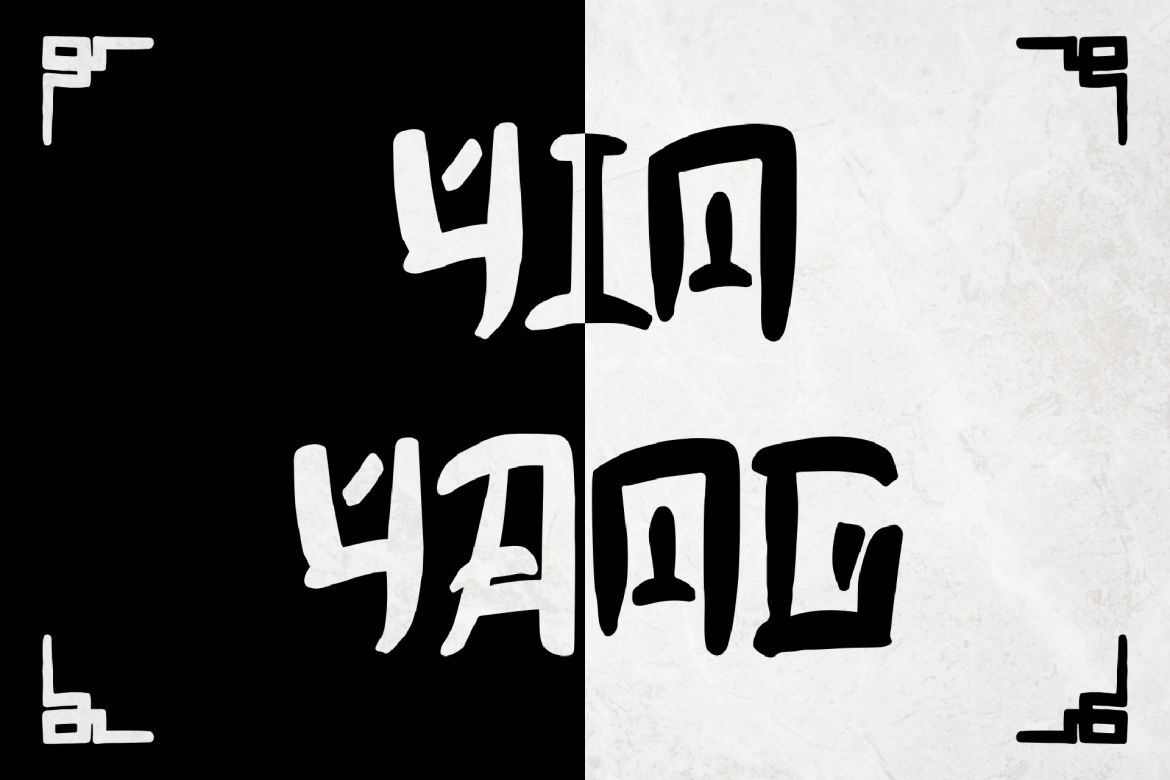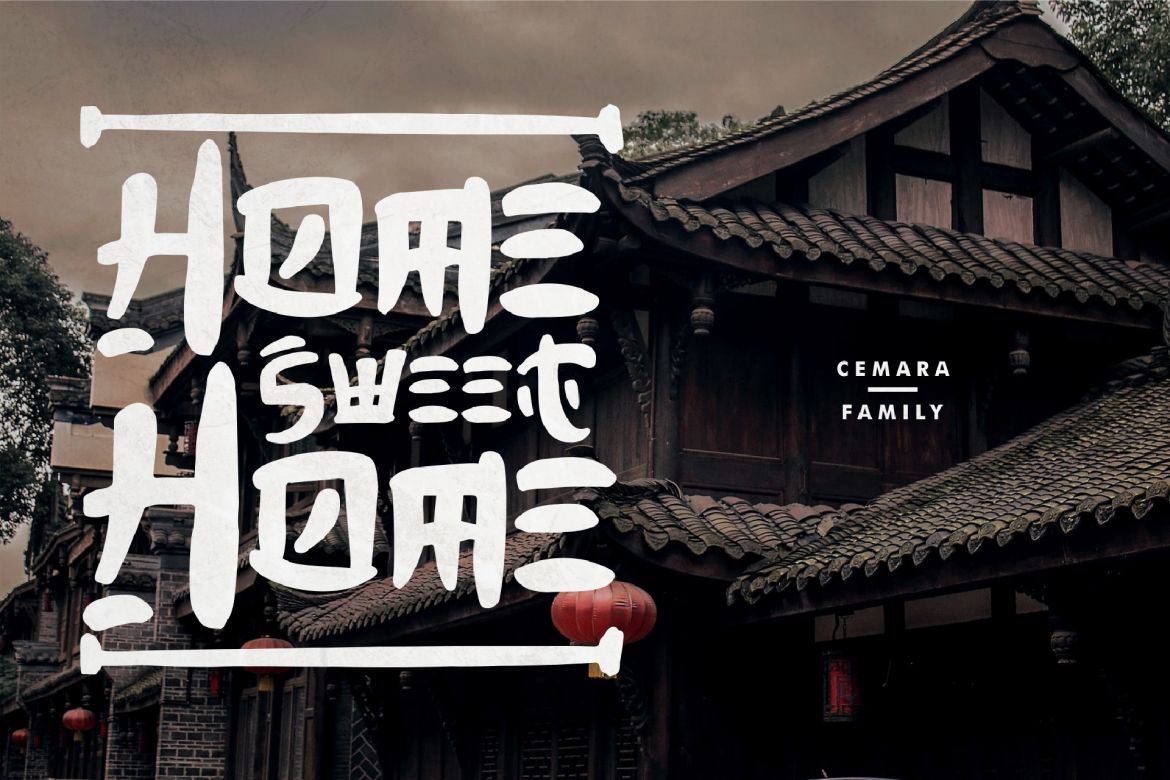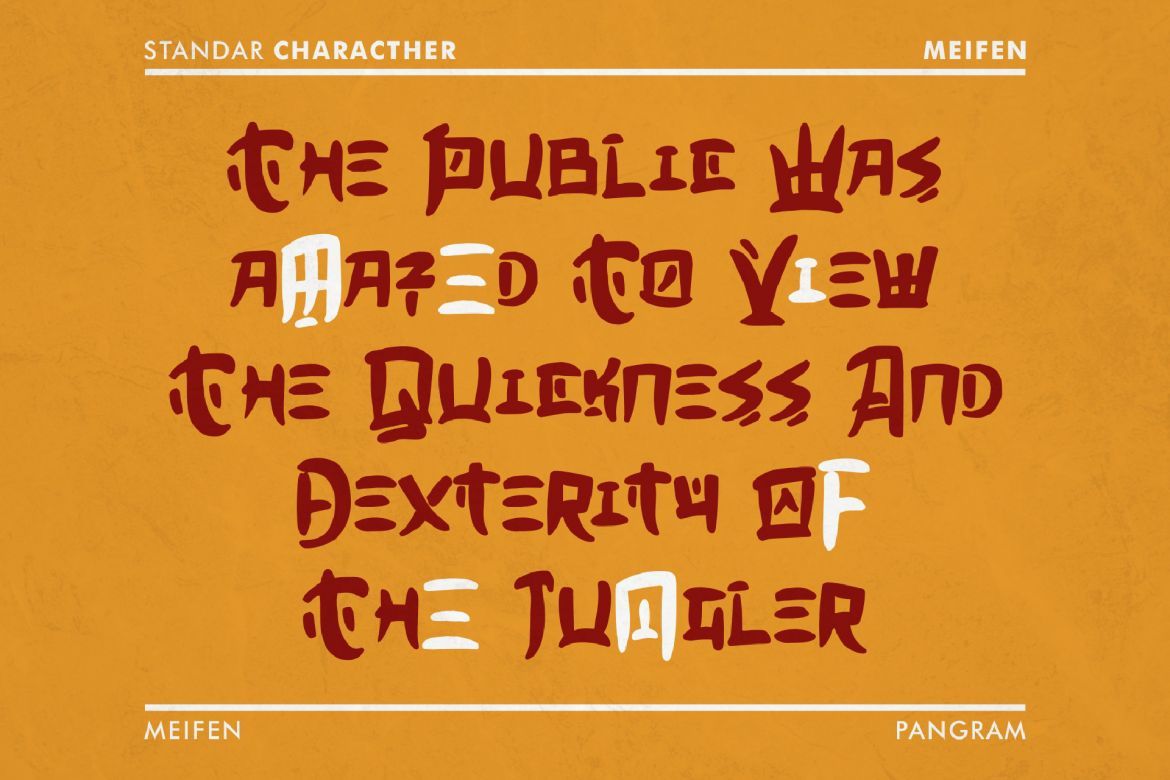
Meifen - Chinese Display Font
This font is inspired by Chinese New Year with traditional Chinese and scratch styles, making alphabet letters look like traditional Chinese letters. MEIFEN is perfect for use in designs that have traditional or modern Chinese style. We deliberately display it in a number of modern displays according to the trend.
Meifen is very supportive for use in posters, flyers, banners, quotes, t-shirts, logos, branding, labels, packaging or anything else. With the addition of swash (display in opentype on numeral) will beautify your design.
• chinese traditional word look and many more surprize!
• extras swash